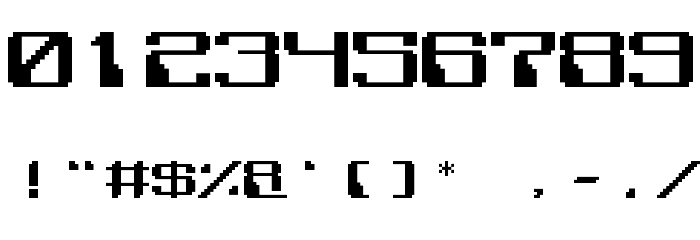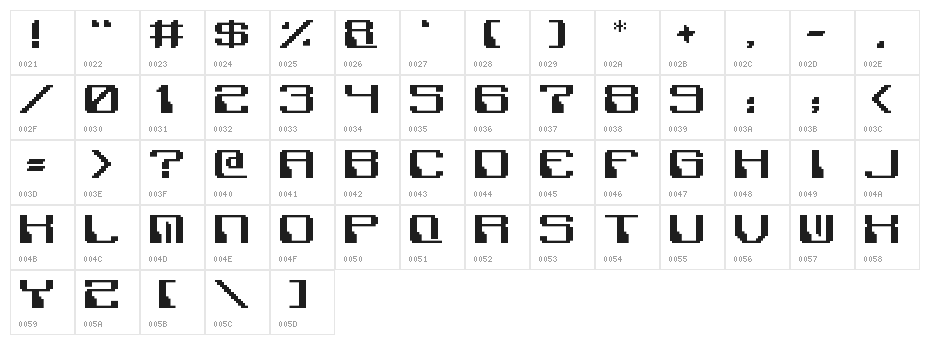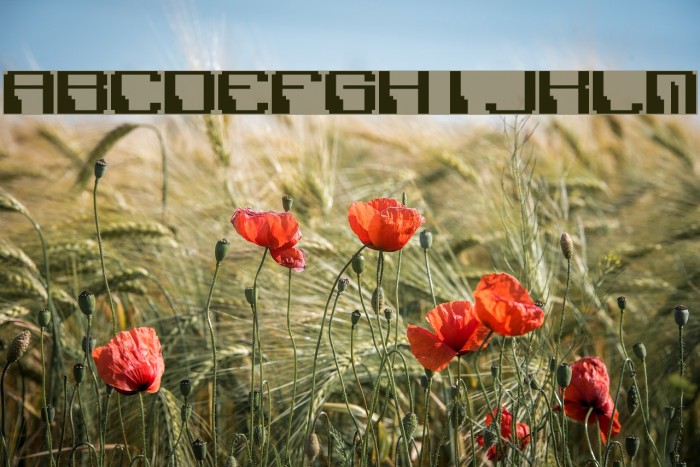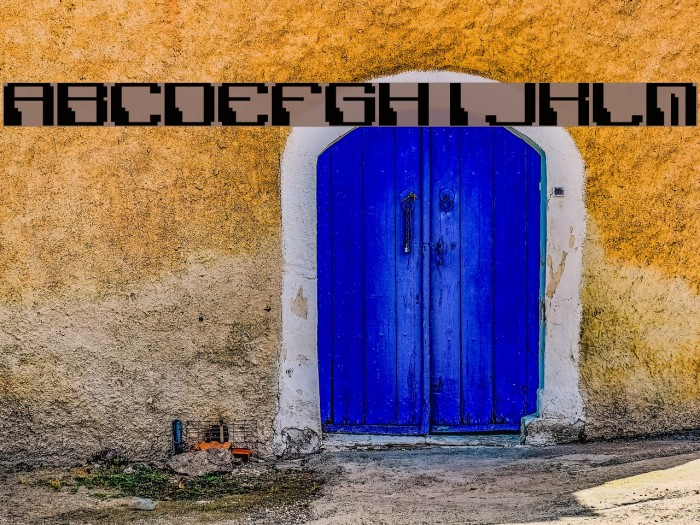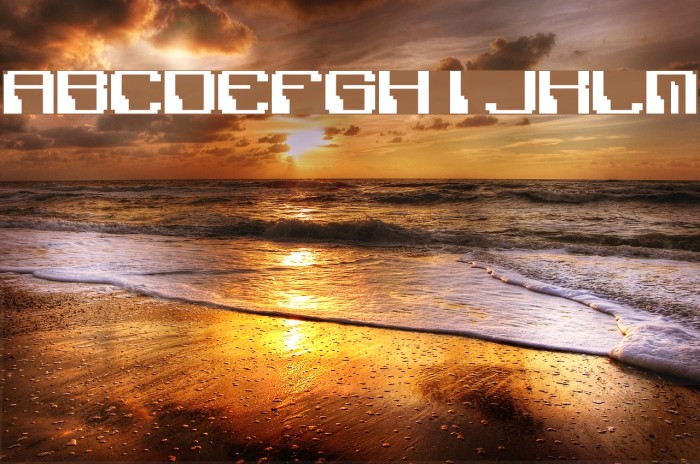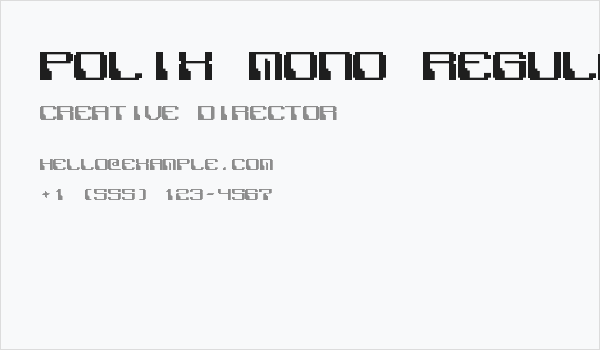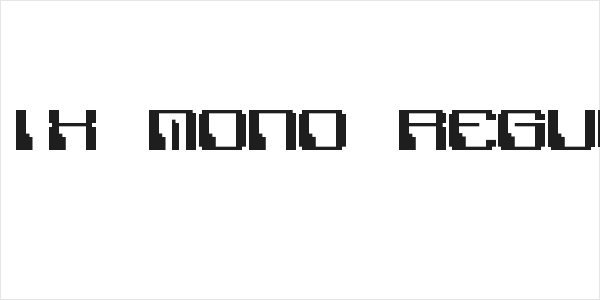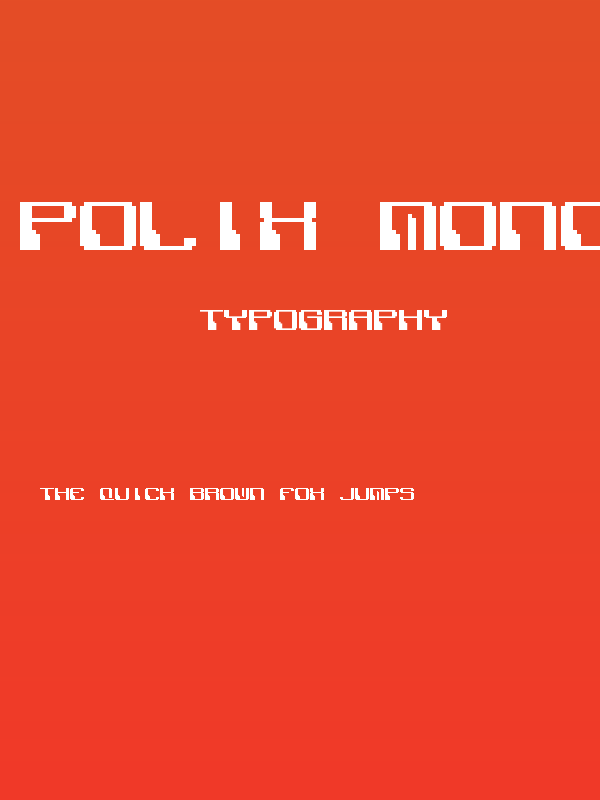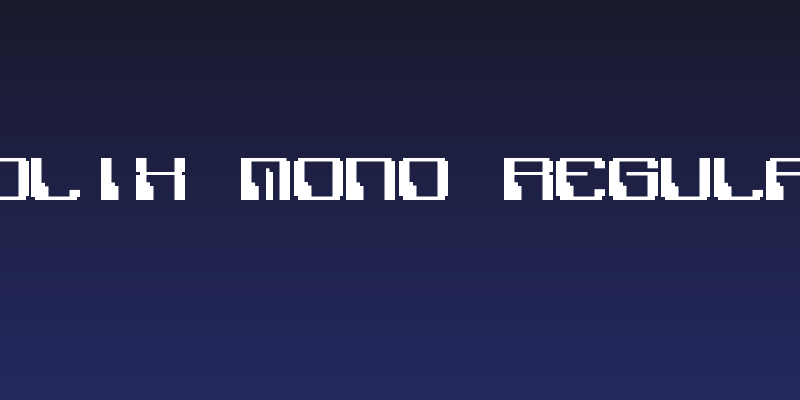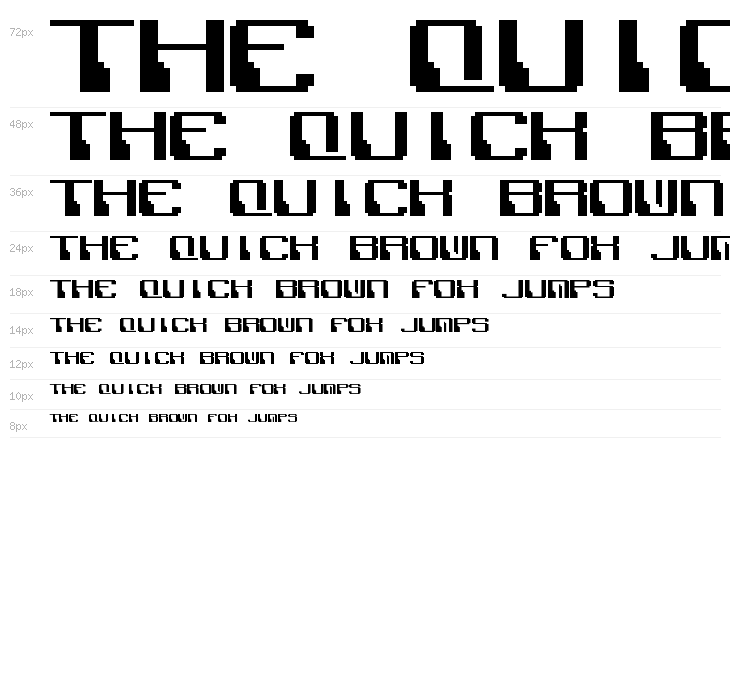
Polix Mono Regular Font
Polix Mono Regular Description
This font features a monospaced design with a distinctly modern and digital aesthetic. Each character is uniformly spaced, creating a clean and structured appearance. The geometric shapes and sharp angles give it a futuristic feel, while the consistent line thickness across all characters ensures readability. The uppercase and lowercase letters maintain a uniform height, enhancing the font's orderly look. The numerals and special characters are designed to match the overall style, making it suitable for coding, technical documents, or any project requiring a sleek, modern typeface.
| Use Case | Coding, Technical documents, Digital interfaces |
| Proposed Projects | Ideal for coding, technical documents, digital interfaces, and modern branding. |